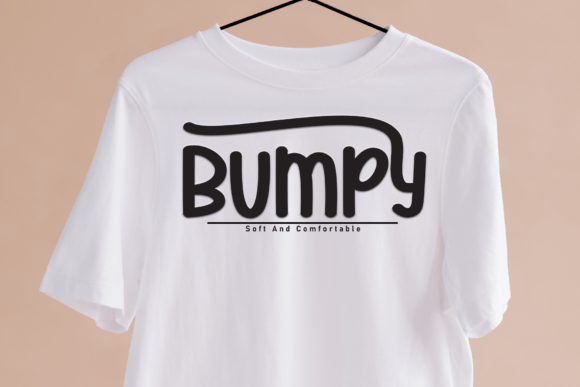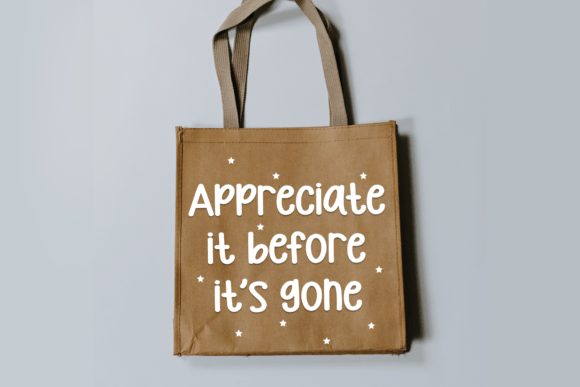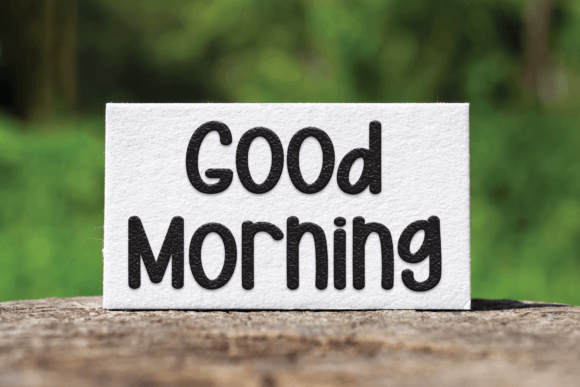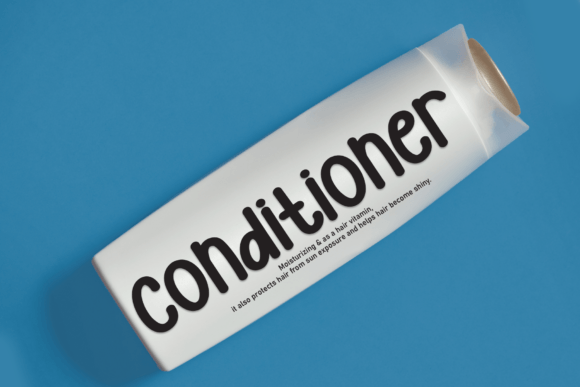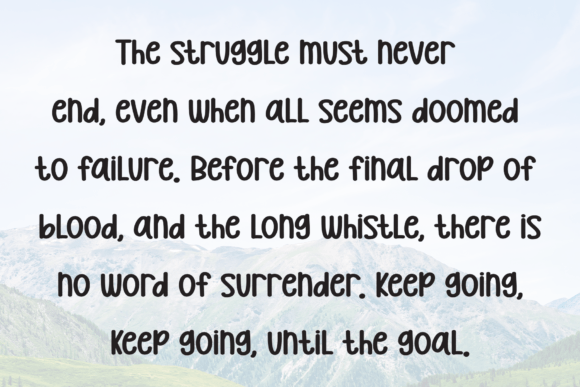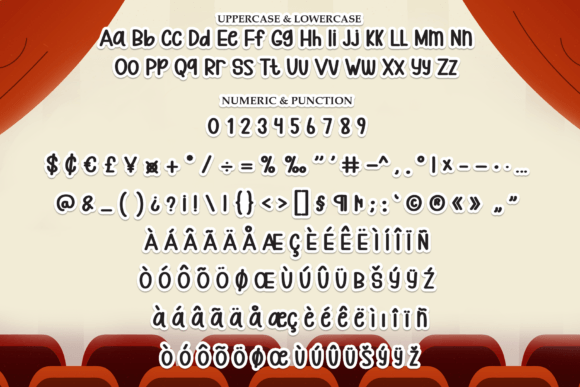
Introducing Comedy Font: The Ultimate Choice for Adding a Fun Touch to Your Designs
Are you tired of using the same old boring fonts in your designs? Do you want to add a playful and fun touch to your wedding invitations, cards, and other creative projects? Look no further than Comedy Font, a sweet and friendly handwritten font that’s perfect for bringing a smile to your audience’s faces.
What is Comedy Font?
Comedy Font is a delightful handwritten font that’s designed to add a touch of whimsy and humor to your designs. With its cute and fun appearance, this font is ideal for creating eye-catching and engaging content that’s sure to leave a lasting impression.
Key Features of Comedy Font
- Handwritten style: Comedy Font boasts a beautiful, handwritten style that’s perfect for adding a personal touch to your designs.
- Cute and fun: This font is designed to be playful and fun, making it perfect for projects that require a lighthearted and humorous tone.
- Versatile: Comedy Font is highly versatile and can be used for a wide range of design projects, from wedding invitations and cards to posters and social media graphics.
- Easy to read: Despite its playful appearance, Comedy Font is easy to read and understand, making it perfect for use in body text and other written content.
Use Cases for Comedy Font
Comedy Font is perfect for a wide range of design projects, including:
- Wedding invitations: Add a touch of whimsy and romance to your wedding invitations with Comedy Font.
- Cards and greetings: Create fun and playful cards and greetings for birthdays, holidays, and other special occasions.
- Social media graphics: Use Comedy Font to create eye-catching and engaging social media graphics that are sure to stand out.
- Posters and flyers: Add a playful touch to your posters and flyers with Comedy Font, perfect for promoting events, products, or services.
Benefits of Using Comedy Font
Using Comedy Font in your designs can have a range of benefits, including:
- Increased engagement: The playful and fun appearance of Comedy Font is sure to grab the attention of your audience and keep them engaged.
- Improved brand personality: Comedy Font can help to add a touch of personality to your brand, making it more relatable and human.
- Enhanced creativity: With its unique and playful appearance, Comedy Font can help to inspire creativity and add a fresh perspective to your designs.
Tips for Using Comedy Font Effectively
To get the most out of Comedy Font, here are a few tips to keep in mind:
- Use it sparingly: While Comedy Font is perfect for adding a playful touch to your designs, it’s best to use it sparingly to avoid overwhelming your audience.
- Pair it with other fonts: Comedy Font pairs well with a range of other fonts, so don’t be afraid to experiment with different combinations.
- Consider your audience: While Comedy Font is playful and fun, it may not be suitable for all audiences. Be sure to consider your target audience and adjust your font choice accordingly.
Comedy Font is a sweet and friendly handwritten font that’s perfect for adding a fun touch to your designs. With its cute and playful appearance, this font is ideal for a wide range of design projects, from wedding invitations and cards to social media graphics and posters. By using Comedy Font effectively, you can add a touch of personality to your brand, increase engagement, and enhance your creativity.